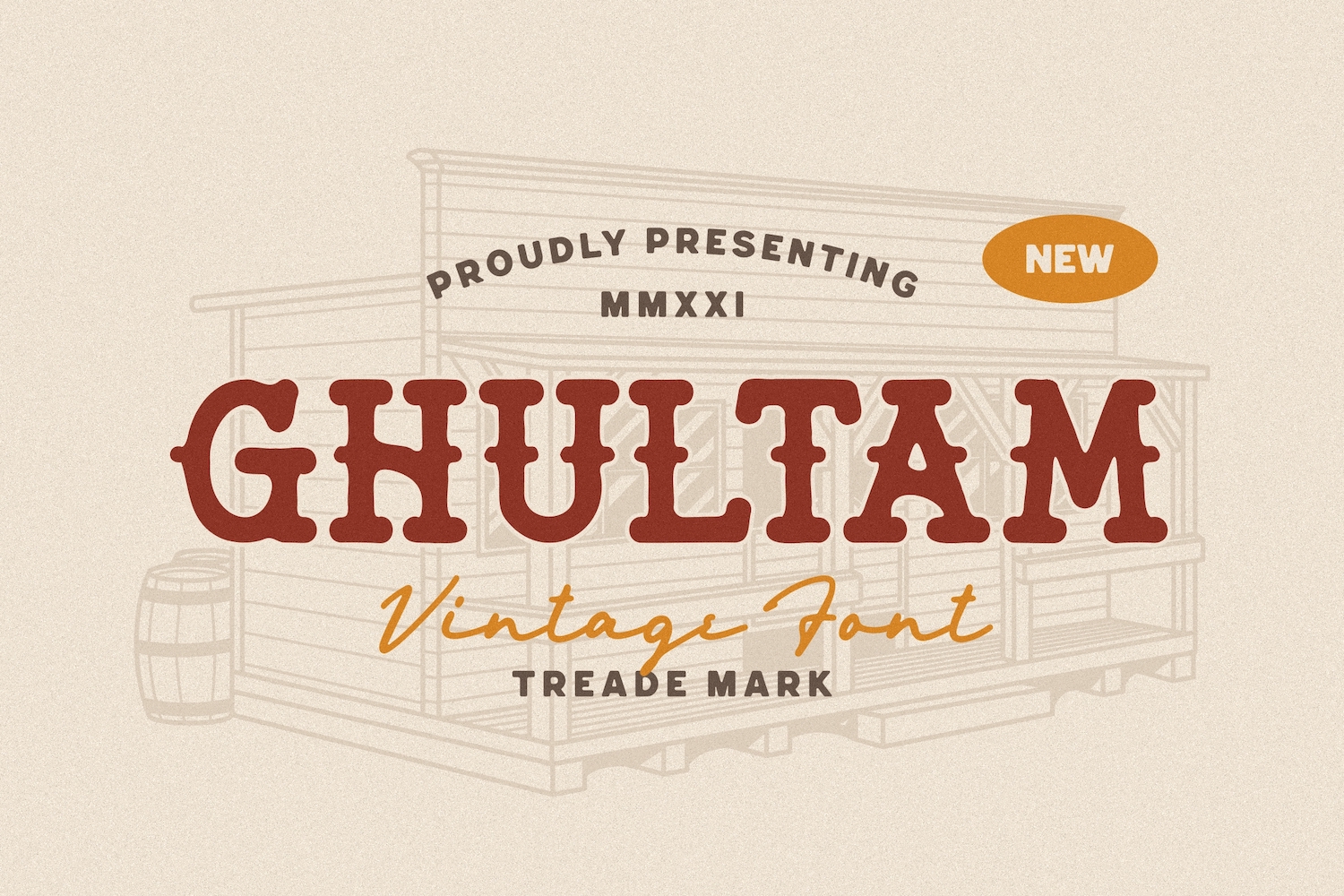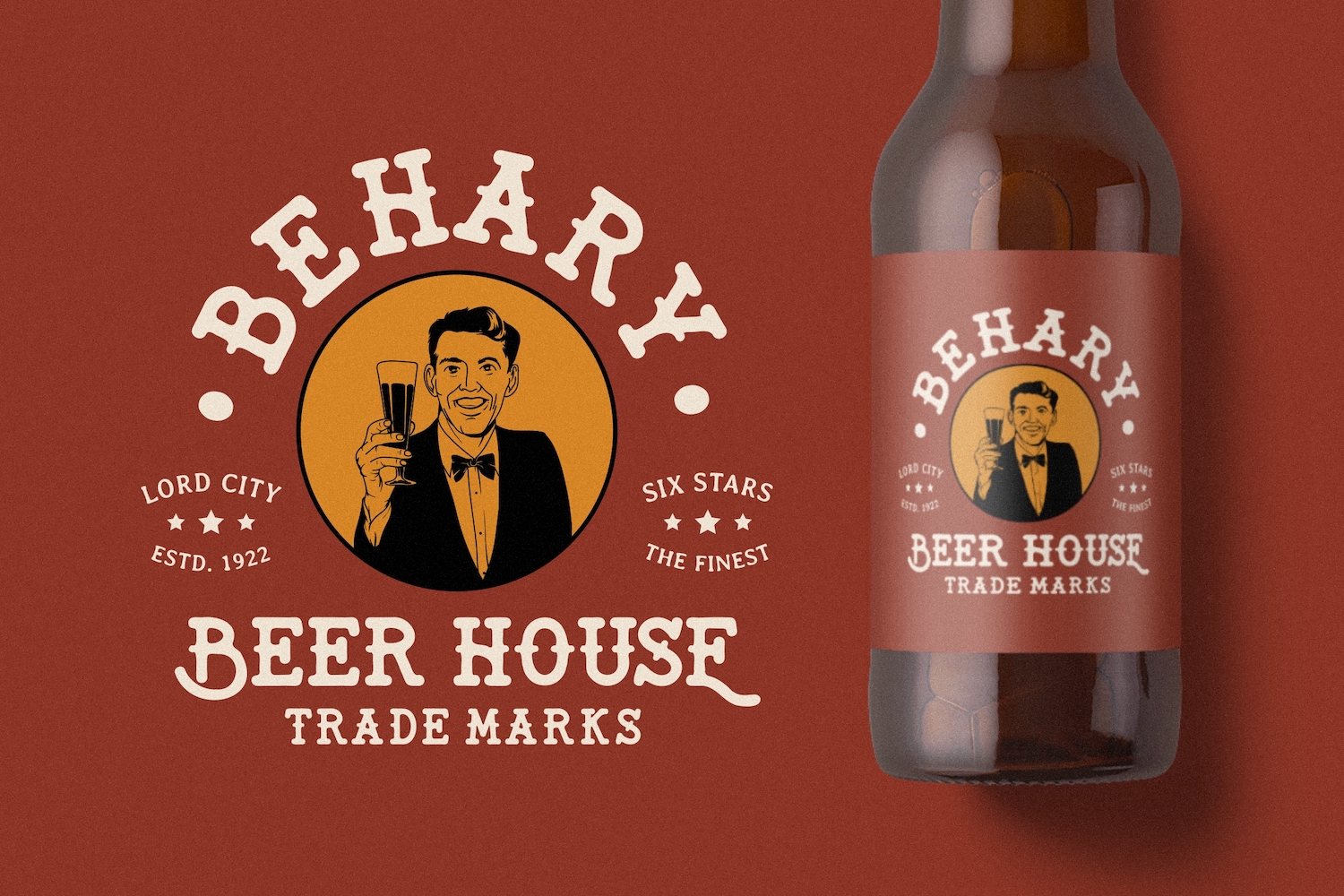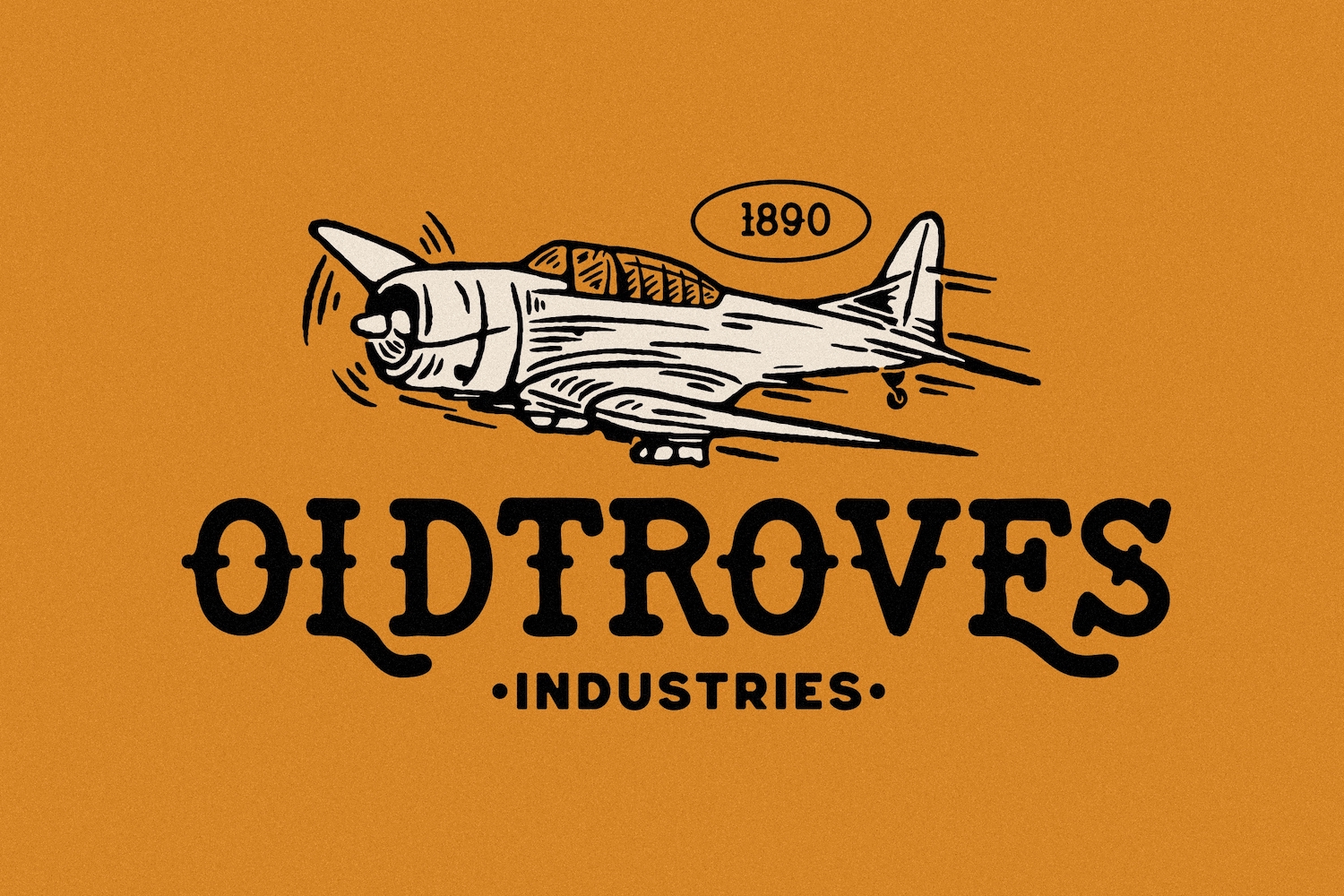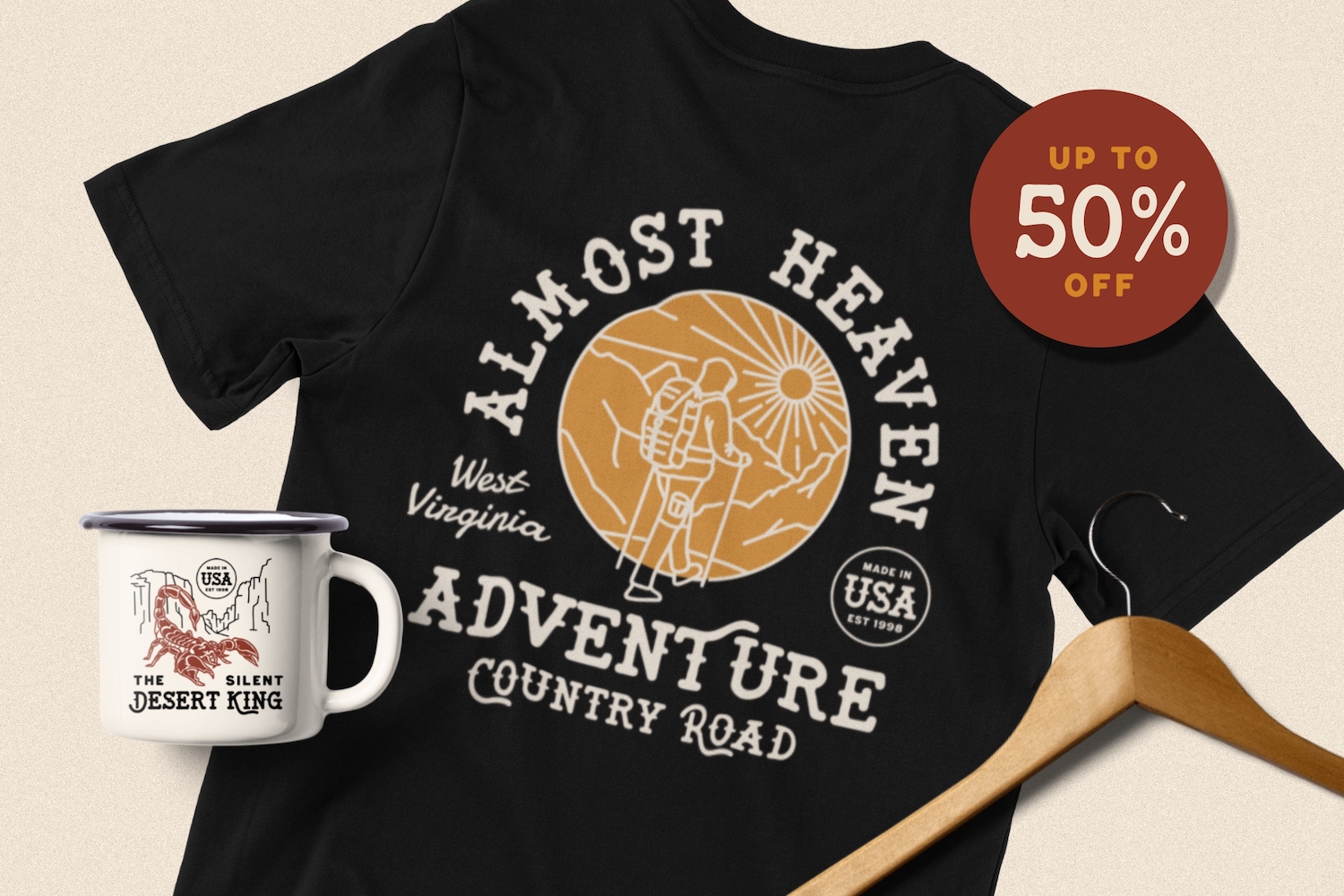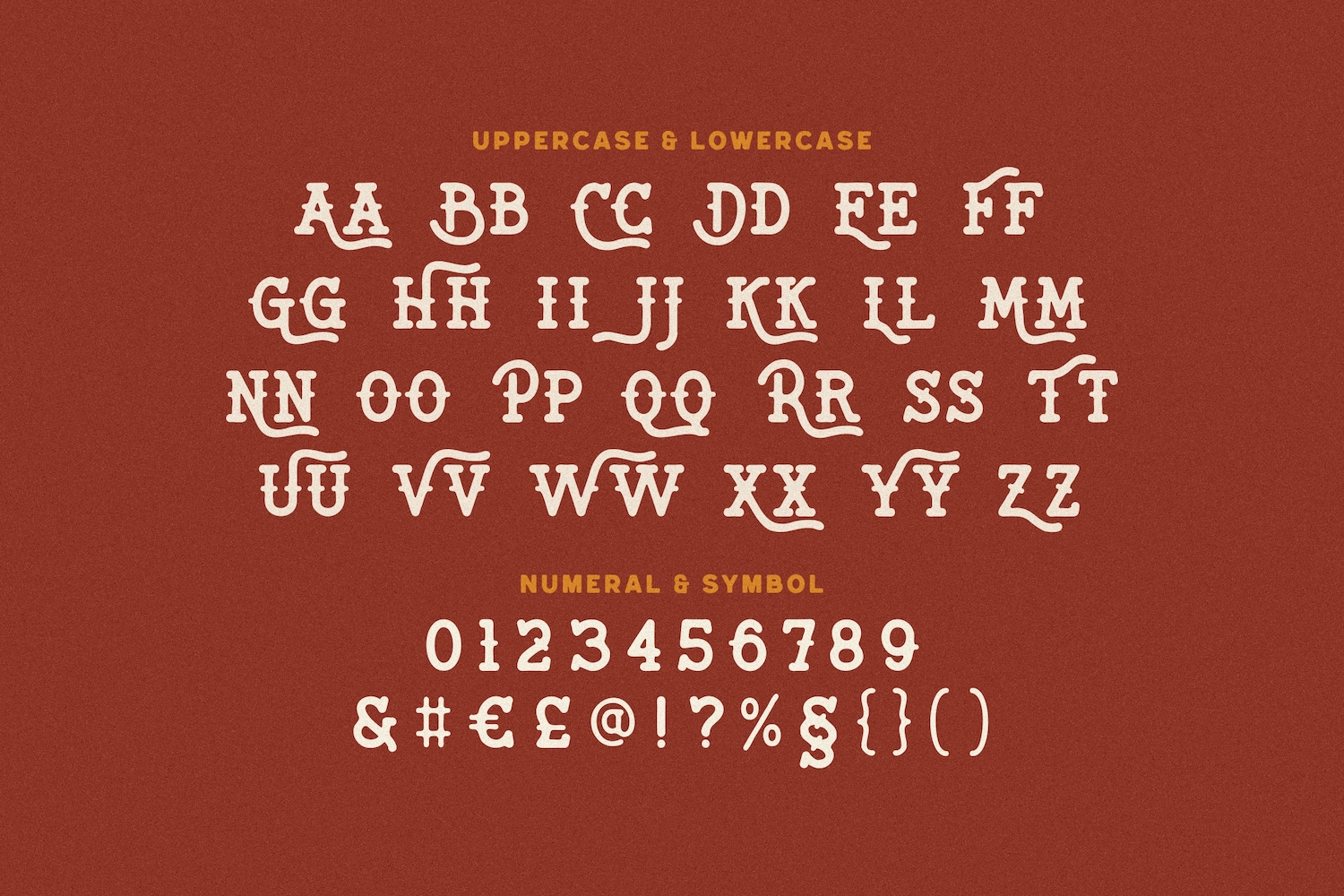
Ghultam is a bold vintage display font that brings a nostalgic Western flair to your design projects. Its slab-serif form, paired with ornamental curves and rugged outlines, gives it a handcrafted character that evokes old signage, saloon branding, and Americana aesthetics. Perfect for labels, logos, or apparel design, Ghultam stands out with a strong presence and authentic personality.
Equipped with uppercase, lowercase, numerals, and multilingual punctuation, Ghultam also includes stylized alternates to enhance visual rhythm. Its versatility makes it ideal for retro branding, beer packaging, outdoor merchandise, and rustic-inspired campaigns. Whether you’re designing for a vintage bar, coffee brand, or adventure gear, Ghultam delivers a timeless typographic punch.